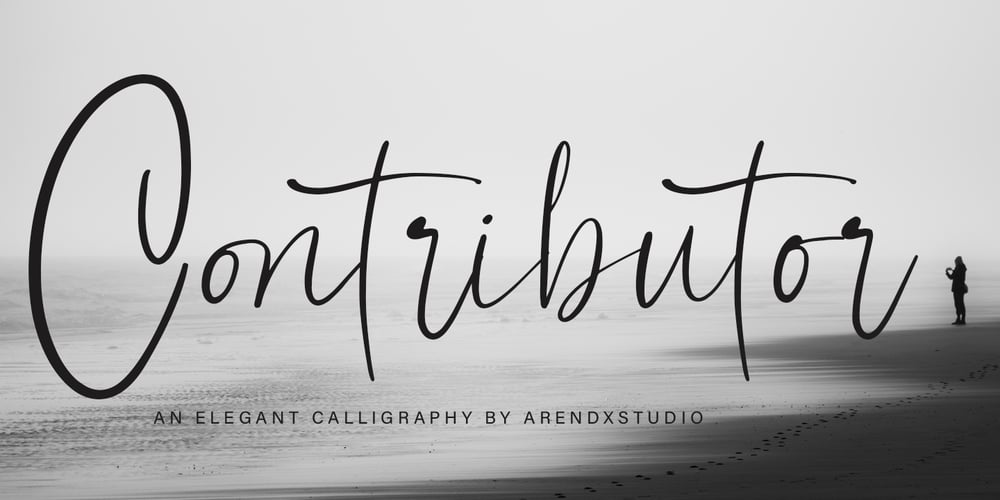
Contributor Font Family was designed by Asep Rendi and published by Arendxstudio. Contributor contains 1 styles and family package options. Contributor Luxury Calligraphy – that is luxurious in a casual and distinctive style – is perfect for your branding designs and will also be very beautiful in wedding invitations, business cards and especially in your brand name logotype. Contributor Luxury Calligraphy has beautiful Uppercase and Lowercase, figures and ligature, and much more. There it is! I really hope you enjoy it. Comments & likes are always welcome and accepted. Don’t hesitate to send a message if you have a problem or question. Now just read this, go there and make it happen.